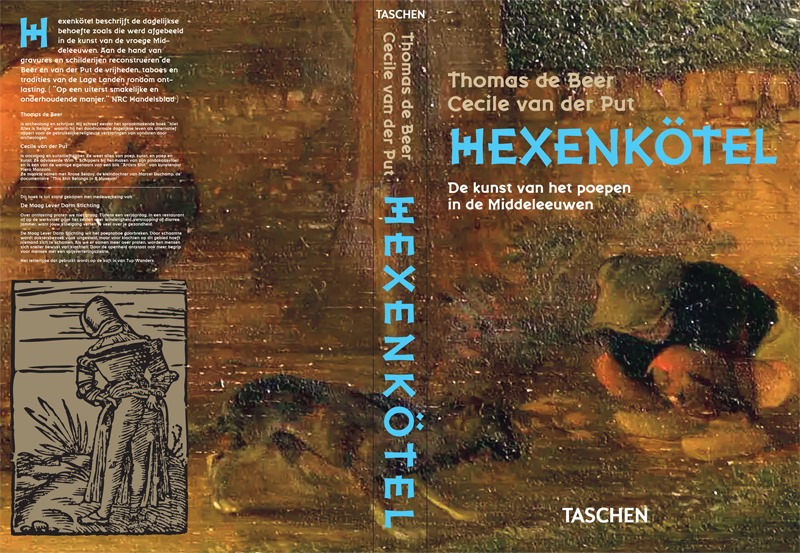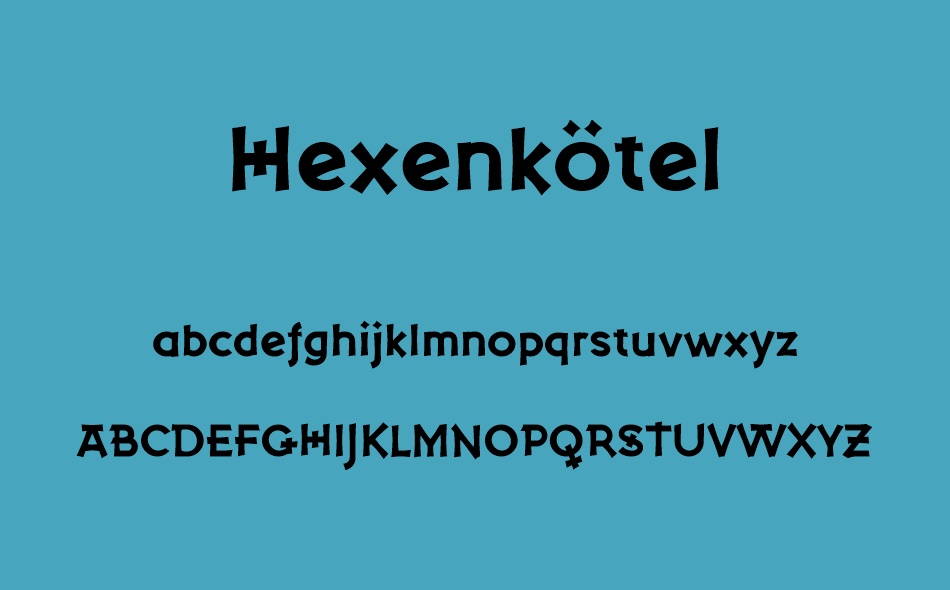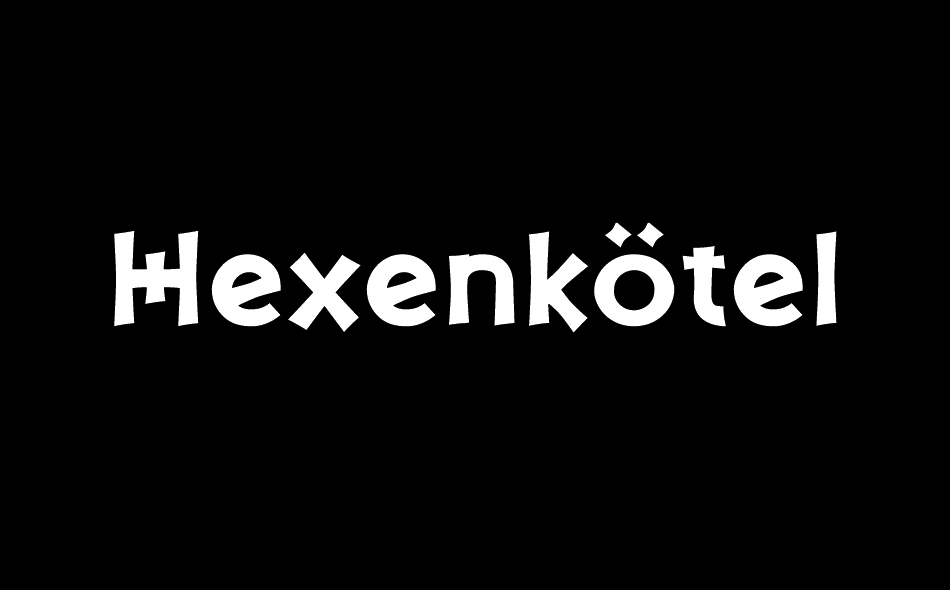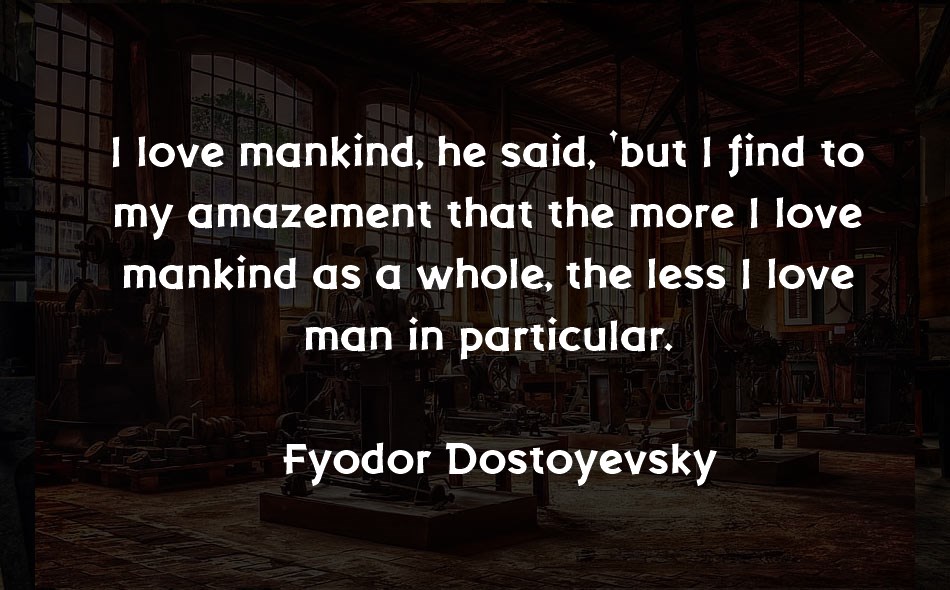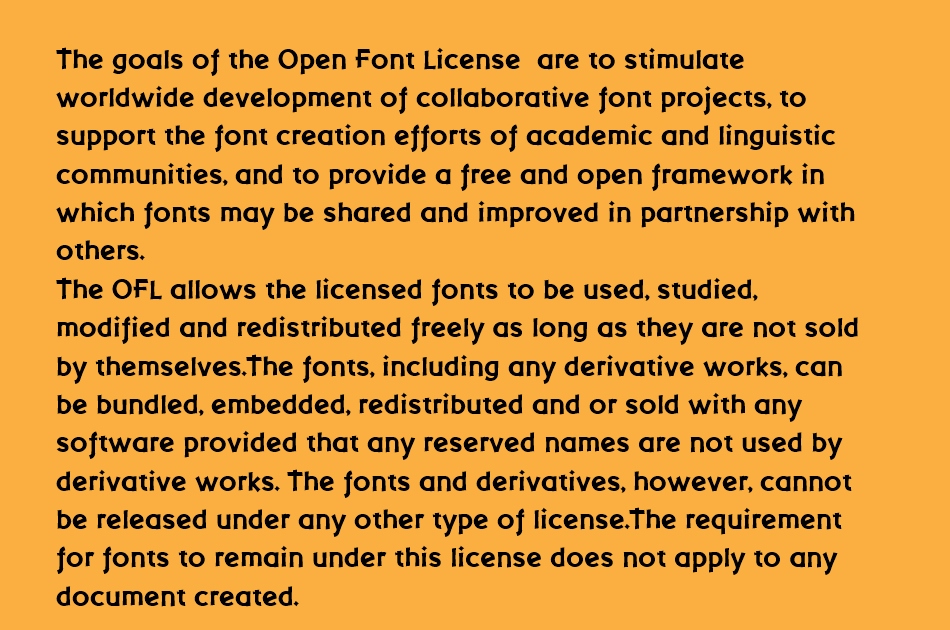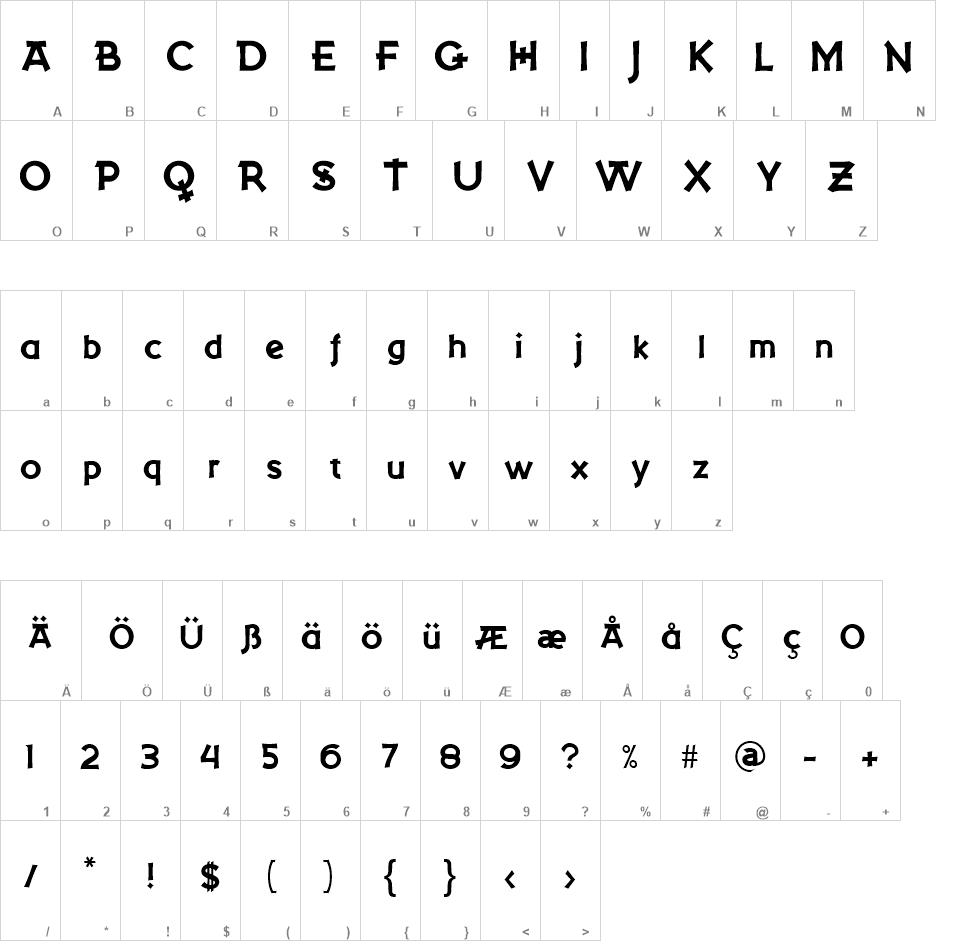
Hexenk?tel font
It's chunky and a bit awkward and sloppy, but I think Hexenktel (which means witches' poo in my language btw) will look fine on medieval, dark and fantasy themed games, book covers or film posters. It also has a bit of of a pre WWII vibe, so it's for all ages!
Supported languages are Icelandic, Norwegian. Swedish, Finnish, Danish, Dutch, German, Czech, Polish, Welsh, Hungarian, Serbo-Croatian, Romanian, Turkish, Esperanto, French, Italian, Portuguese, Spanish, Maori, and yes: even English.